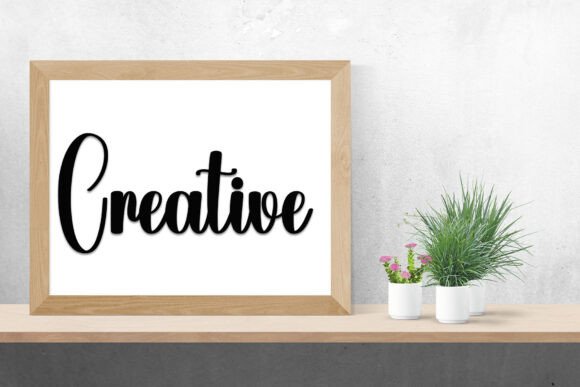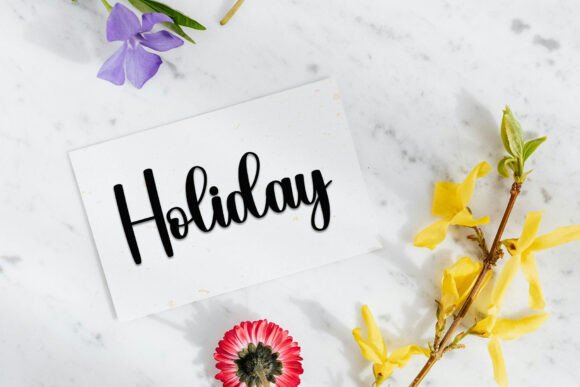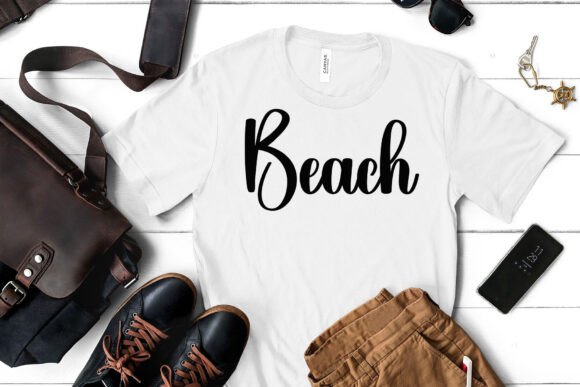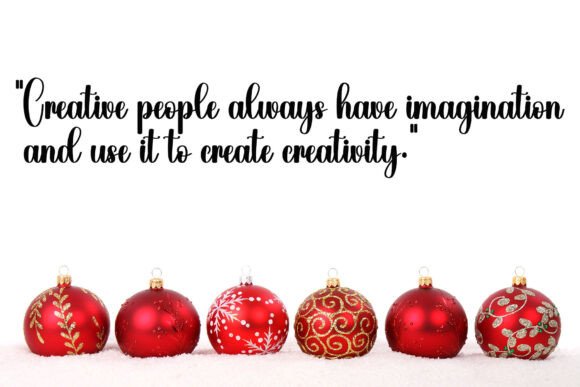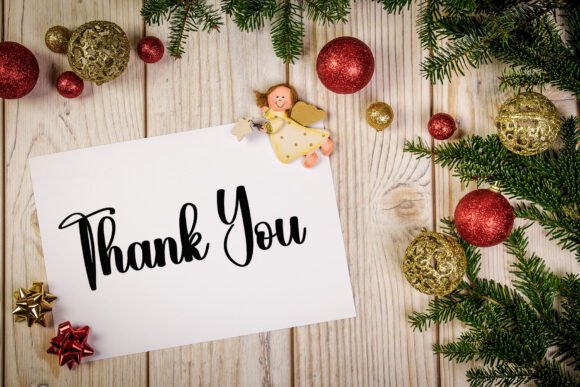
The Art of Beautiful Typography: Unveiling the Magic of Calligraphy Font
Have you ever felt that spark of creativity when you’re working on a design project, and you know exactly what you want to convey? It’s that moment when the right font can elevate your entire message, making it truly unforgettable. For me, it’s the moment when I stumble upon a beautifully crafted font that perfectly captures the essence of my design.
That’s where the Calligraphy Font comes in – a timeless, elegant, and sophisticated font that adds a touch of class to any design project. Inspired by the classic calligraphy of the past, this font is perfect for those who want to add a hint of sophistication and refinement to their work. Whether you’re a seasoned designer or just starting out, the Calligraphy Font is an invaluable tool that can help you create stunning designs that leave a lasting impression.
Key Features of Calligraphy Font
- Unique characteristics include swashes, flourishes, and ornate details, adding a touch of elegance to any design.
- Supports various languages, including Latin, Greek, and Cyrillic scripts, making it a great choice for international designs.
Designer Review: Calligraphy Font
As a designer, I’ve had the chance to work with various fonts, and the Calligraphy Font is one that stands out. Here’s my honest review.
- The elegant and refined look of the font is perfect for creating a sophisticated and luxurious feel in any design project.
- The variety of styles and weights available makes it versatile and suitable for different applications, from formal invitations to elegant packaging designs.
- The font’s unique characteristics, such as the flowing connections between letters, add a touch of personality and whimsy to any design.
- The font can be difficult to read in small sizes, especially in digital applications where legibility is crucial.
- The complexity of the font’s design can make it challenging to use in situations where simplicity is key, such as in body text or headlines with a lot of text.
- The font’s compatibility with certain software or platforms may be limited, which can cause issues during the design and production process.
The Calligraphy Font is a beautiful and versatile font that can add a touch of elegance to any design project. While it may have some limitations, its unique characteristics and refined look make it a valuable addition to any designer’s toolkit.
Tips for Getting the Most Out of Calligraphy Font
For the most effective use of calligraphy font, consider the following tips:
– Use it sparingly to add a touch of elegance and sophistication
– Pair it with a clean and simple background to avoid visual clutter
– Experiment with different font sizes and styles to create visual interest
– Use it to add a personal touch to invitations, greeting cards, and other special occasions
Calligraphy font is commonly used in:
– Greeting cards and party invitations
– Branding and marketing materials
– Artistic and creative projects
– Special occasion documents, such as birth announcements and graduation certificates